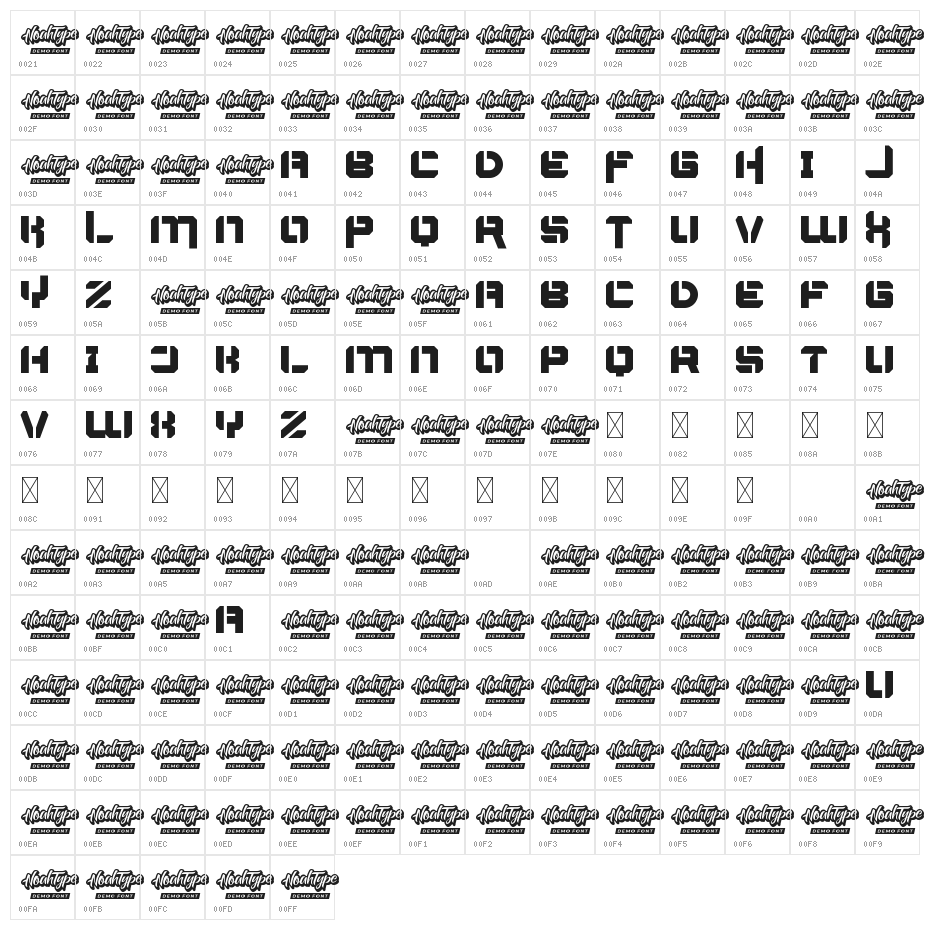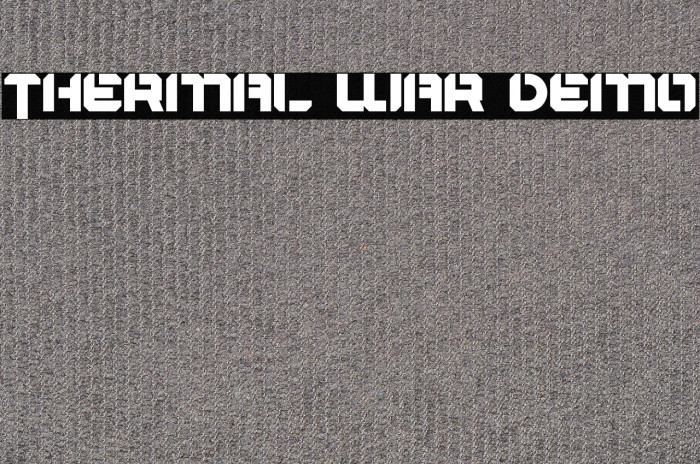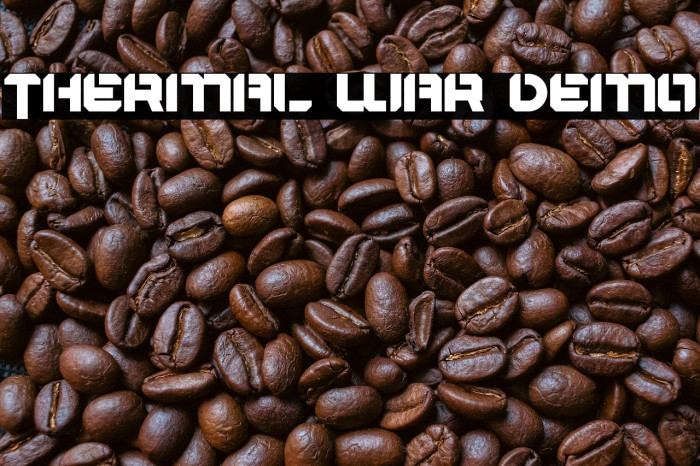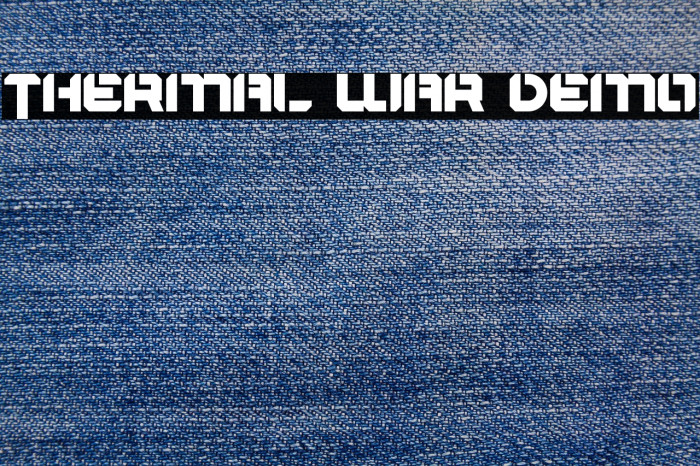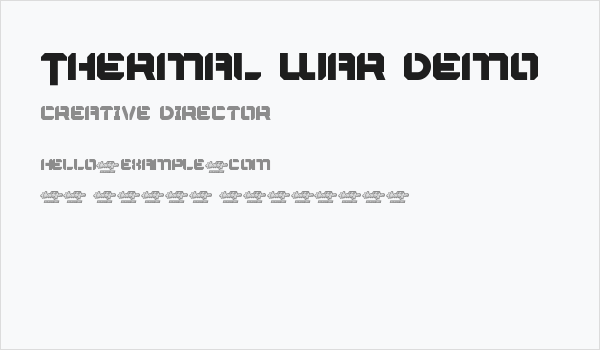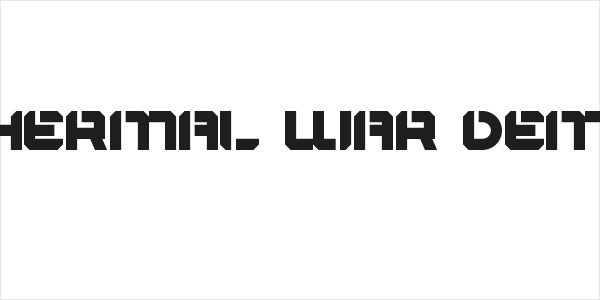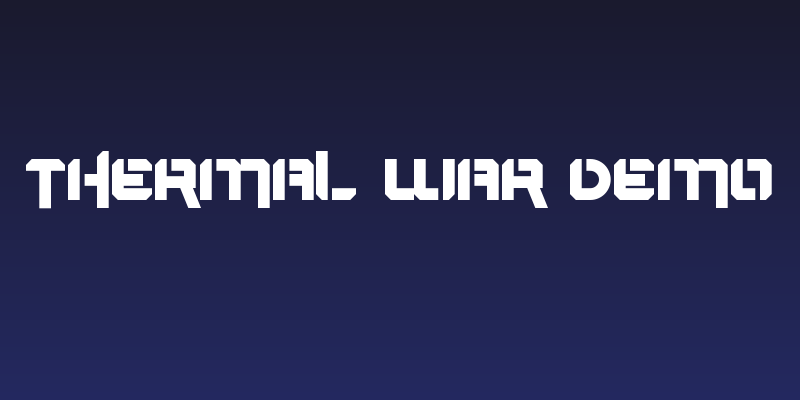
Thermal War Demo Font
This font features a bold, geometric design with a futuristic and industrial feel. The characters are constructed with sharp angles and thick strokes, creating a strong visual impact. The uppercase letters are particularly striking, with a blocky appearance that suggests strength and stability. The lowercase letters maintain the same boldness, ensuring consistency across the typeface. The numerals and special characters are designed to match the overall aesthetic, making this font suitable for a variety of applications where a modern and assertive look is desired.
| Proposed Projects | Ideal for use in technology branding, video game titles, movie posters, and any project requiring a strong, modern aesthetic. |